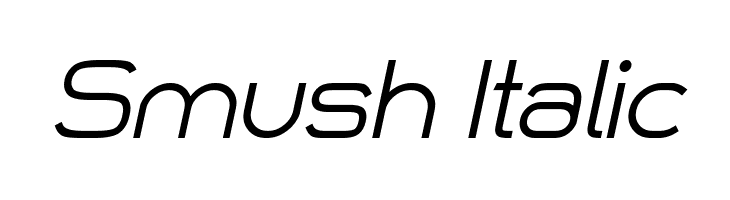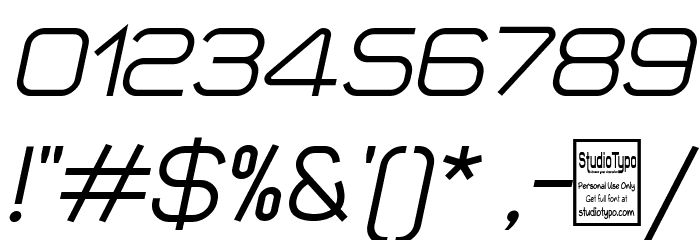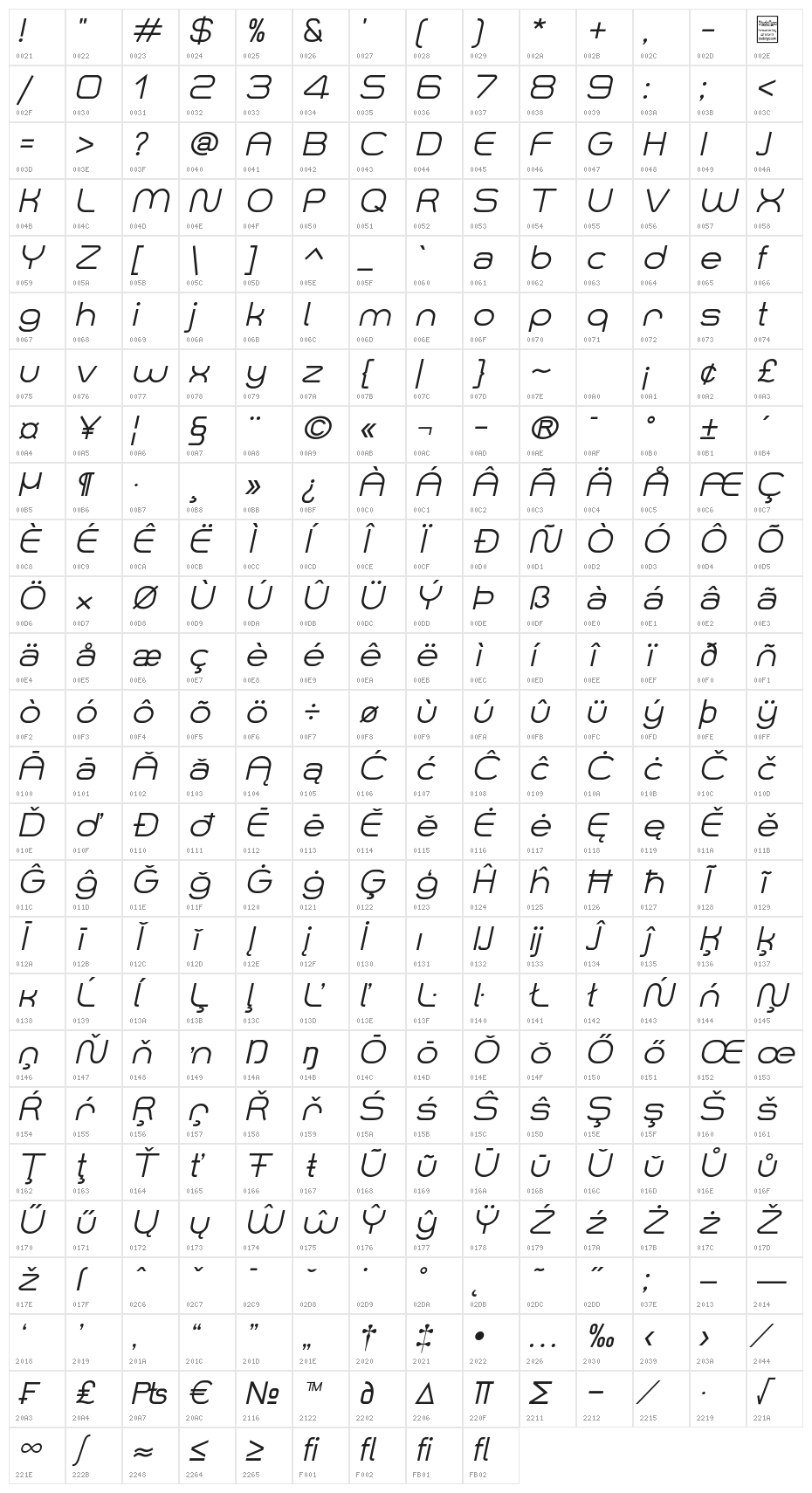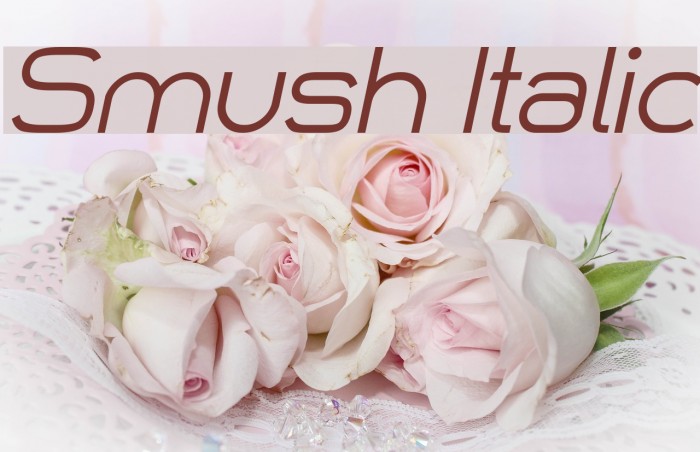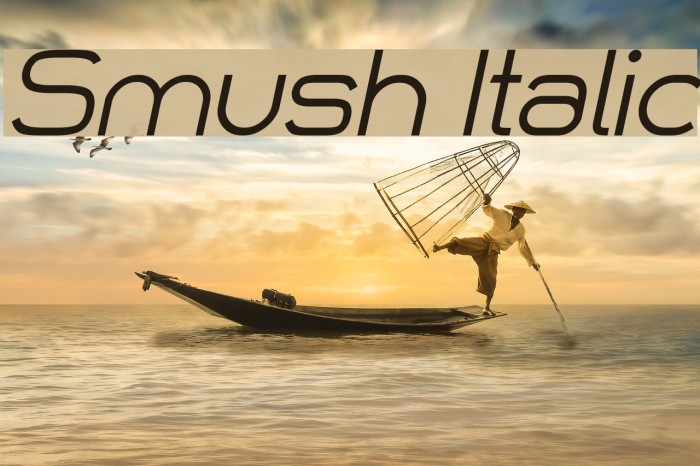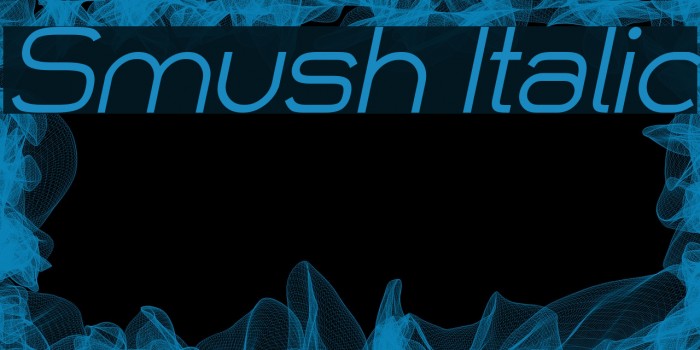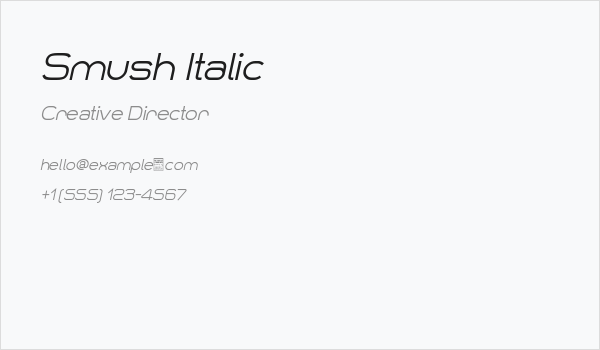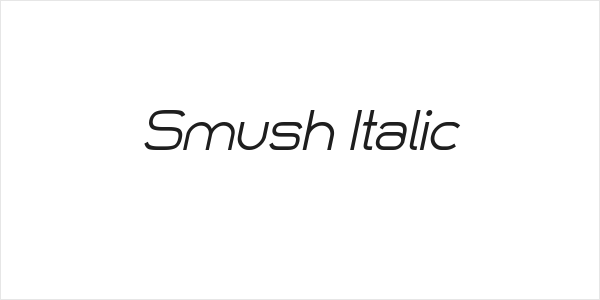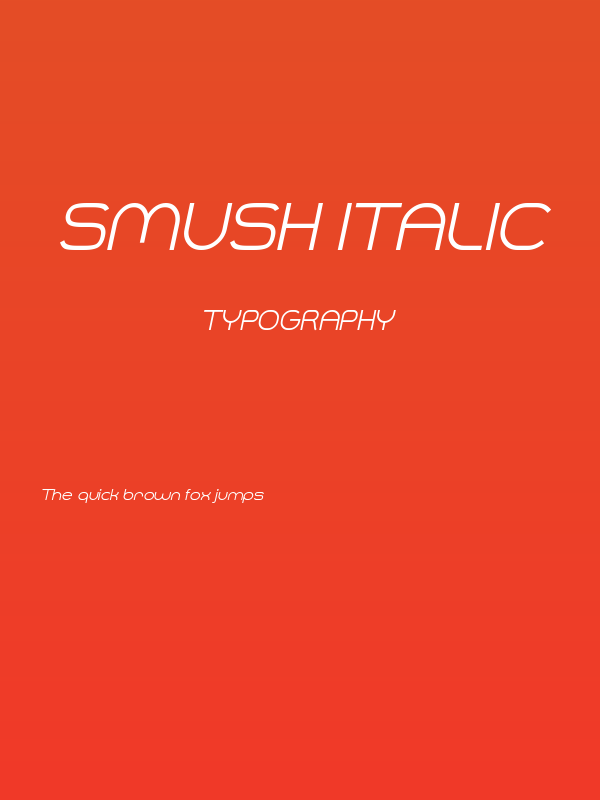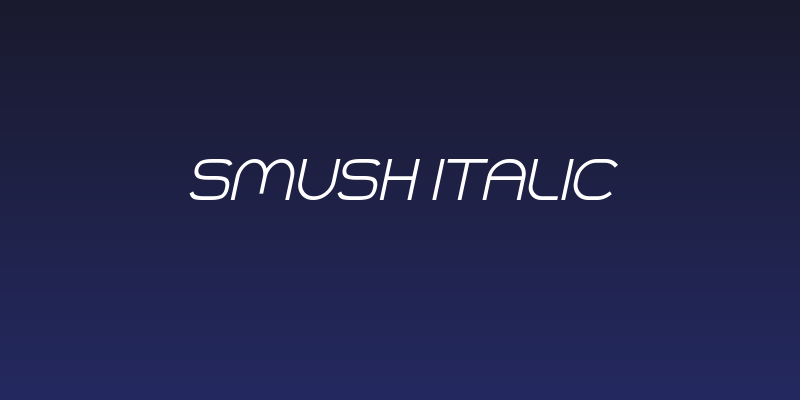
Smush Italic Font
Smush Italic Description
This font features a sleek, modern design with a distinct italic slant, giving it a dynamic and forward-moving appearance. The characters are crafted with a uniform stroke width, contributing to a clean and streamlined look. The uppercase and lowercase letters maintain a consistent style, with rounded edges and smooth curves that enhance readability. The numerals and special characters are designed to match the overall aesthetic, ensuring a cohesive appearance across all text elements. This font's contemporary style makes it suitable for a variety of applications, from digital interfaces to print media.
| Use Case | Headlines, Logos, Digital Interfaces |
| Proposed Projects | Ideal for tech branding, modern advertising, digital interfaces, and innovative product packaging. |